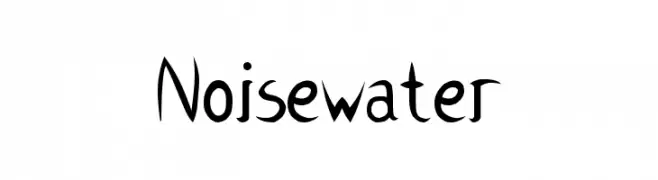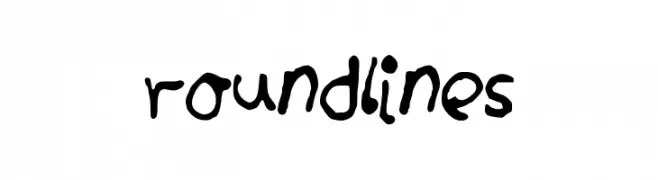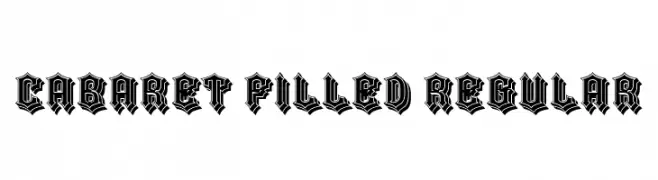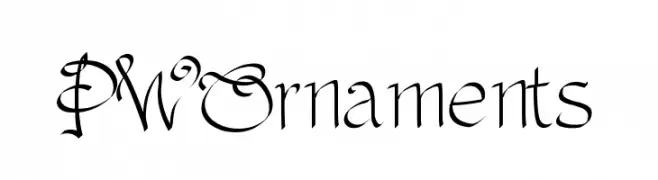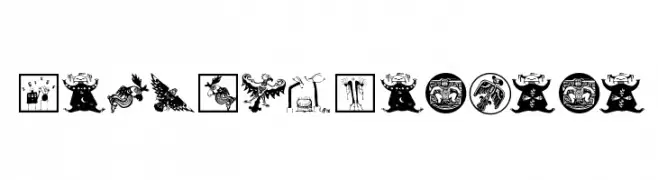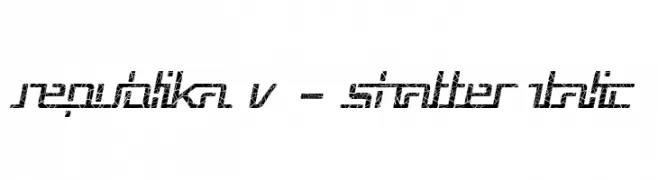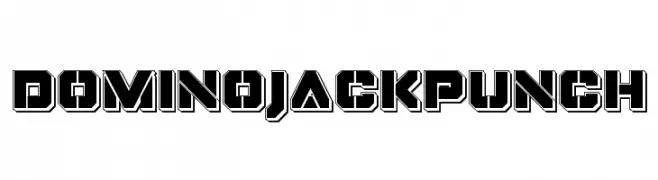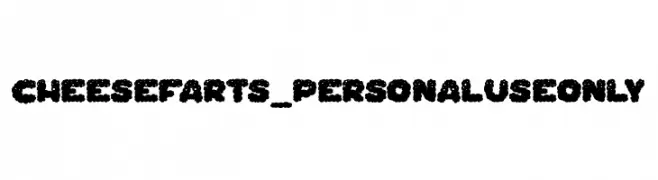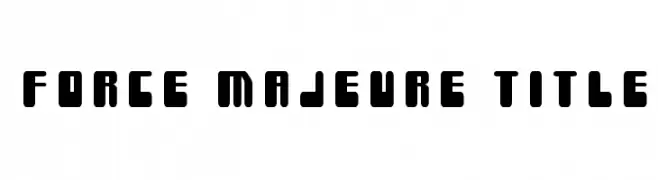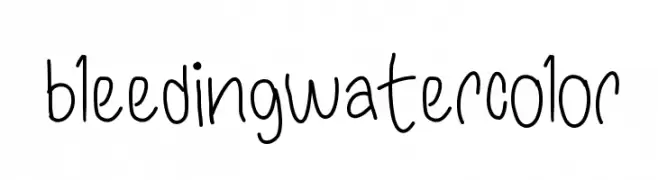
( Jared Griggs )
A playful, hand-drawn font with dynamic curves and whimsical style.
A bold, futuristic font with a striped gradient effect.
( iAgency 1980 - www.iagency1980.com )
A bold, Gothic-style font with sharp, angular lines and decorative serifs.
A bold, mechanical-themed font with a playful, industrial design.
A bold, decorative font with a blackletter influence and vintage flair.
An ornate, decorative font with calligraphic elements and intricate design.
Decorative pictogram font inspired by ancient or tribal art.
An elegant script font with flowing swirls and classic charm.
A modern, geometric sans-serif font with clean lines and uniform strokes.
A shattered, italicized font with a modern, geometric design.
A bold, futuristic font with sharp, angular edges and a sci-fi aesthetic.
( Fonts by www.kimberlygeswein.com - Kimberly Geswein )
A playful serif font with an italic style and medium contrast.
A bold, geometric font with a three-dimensional, industrial style.
( Fonts by dcoxy )
A playful, cloud-like font with bold, rounded characters.
A modern, slanted sans-serif font with medium weight and clean lines.
Hand-drawn, playful icon set with a casual style.
A bold, geometric font with a modern, futuristic style.
( ThePerfectDay Fonts )
A playful, casual handwritten font with irregular, whimsical strokes.
A traditional blackletter font with intricate, ornate letterforms and a gothic aesthetic.
A bold, condensed, and geometric font with a modern appeal.
An elegant, flowing script font with graceful curves and a sophisticated style.
A bold, high-contrast serif font with a blend of classic and modern elements.
( Fonts by Agus Dwiyanto )
A dot-based display font with a digital, pixelated style.
A bold, slanted font with a rugged, dynamic style.
A bold, geometric font with a futuristic and technical design.
A hand-drawn, sketch-like font with playful, uneven strokes.